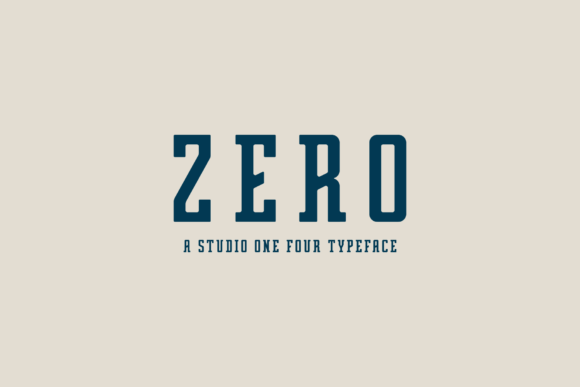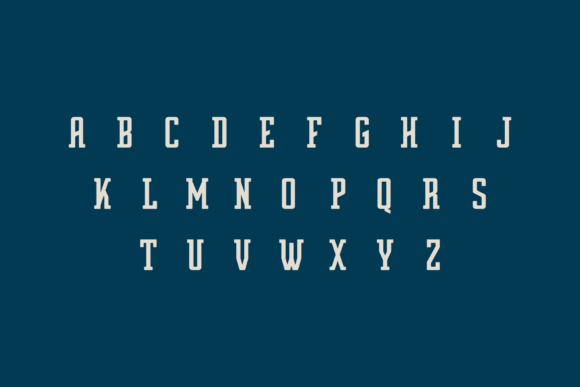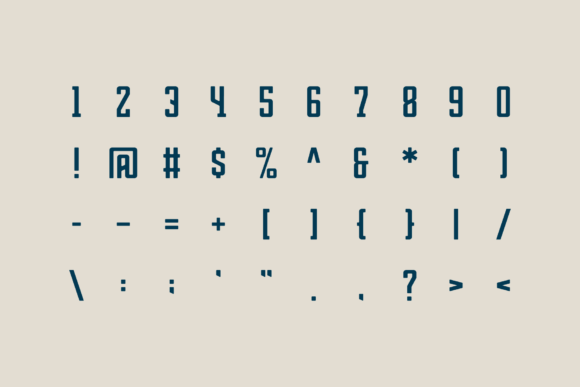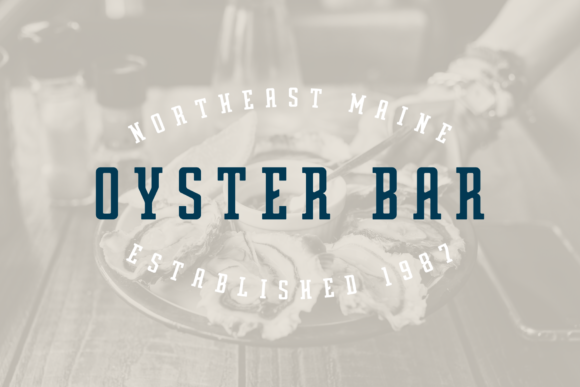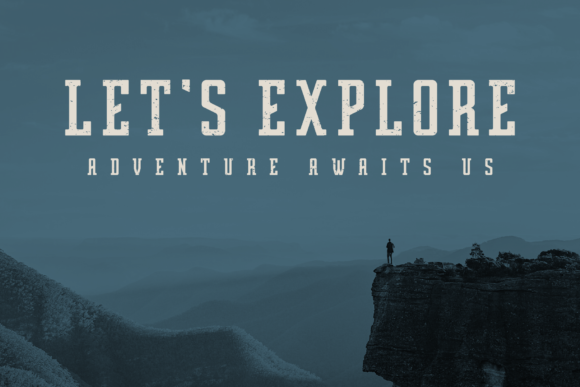
Zero
Zero: A Versatile Slab Serif Font
Zero is a slab serif font created with the aim of providing a low-cost, high-value typeface. Its clean and simple design makes it an excellent choice for vintage-style projects, while its versatility allows it to work well in modern designs too.
Key Features of Zero
• Clean Design: Offers a straightforward and uncluttered look suitable for various applications.
• Slab Serif Structure: Features thick, rectangular serifs typical of slab serif fonts.
• Versatile Application: Ideal for both vintage and modern design projects.
• High-Value Typeface: Combines affordability with quality, making it accessible for various uses.
Ideal Uses for Zero
Zero’s unique characteristics make it particularly well-suited for:
When incorporating Zero into your designs, consider these tips:
• Use for headlines or short blocks of text to showcase its clean style.
• Utilize its versatility across various creative projects to enhance visual appeal.
Zero is an excellent choice for designers looking to add a versatile slab serif font to their typographic toolkit. Its ability to enhance both vintage and modern design projects makes it stand out in the world of typography. Whether you’re working on logos, creating layouts for magazines, or developing content that requires a touch of simplicity, Zero offers the perfect blend of style and functionality.
Furthermore, Zero’s unique design allows it to shine in various contexts. From vintage-inspired designs with a modern twist to more contemporary layouts that need a touch of uniqueness, this font can elevate your projects. Its striking yet functional style works particularly well in designs that require a thoughtful and engaging mood.
In conclusion, Zero is a font that truly captures the essence of creativity and impact in typography. Its ability to work well in both minimalist projects and more elaborate layouts showcases its flexibility. For those looking to add a touch of unique charm to their work, Zero can even enhance themed creations with its distinctive style. It’s the perfect choice for designers seeking to make a strong, stylish impact across a wide range of creative projects.